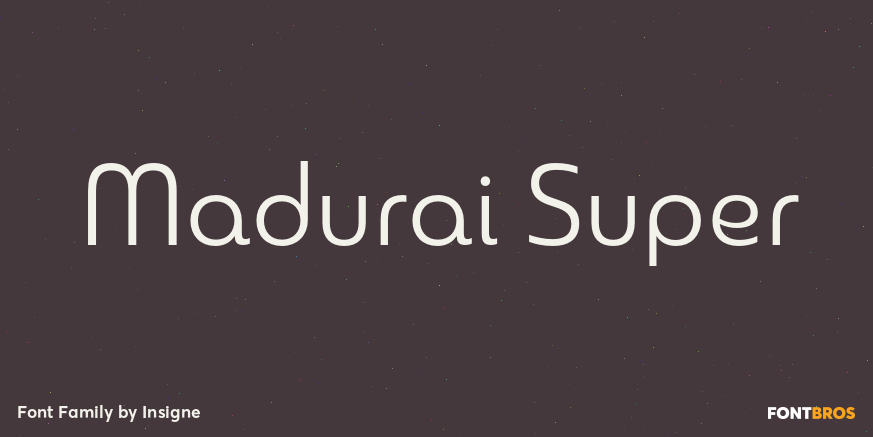
Madurai Super
About Madurai Super
The rounded forms found in Chennai have proven to be one of insigne\’s more popular designs for web-based company logotypes. Now, insigne\’s new superfamily Madurai takes its popular predecessor to a new level, offering a wide range of complementary fonts.…